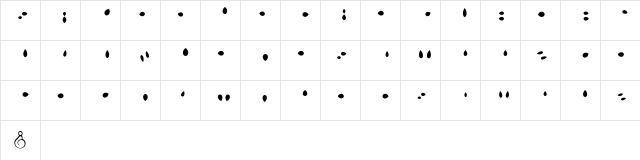
Mister Loopy Loops
Design Context for Mister Loopy Typeface
Mister Loopy is a composed and adaptable typeface that performs quietly and consistently across a wide range of design contexts.